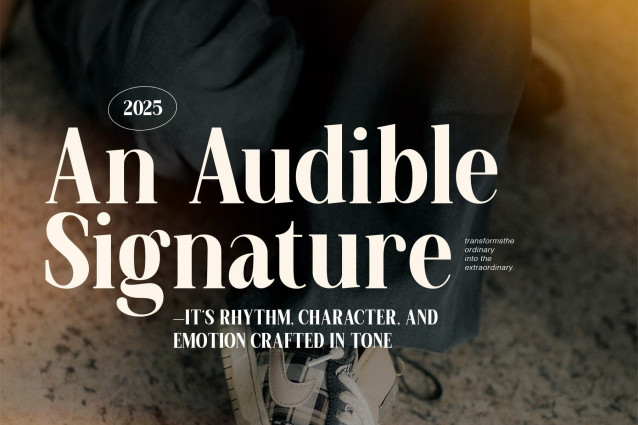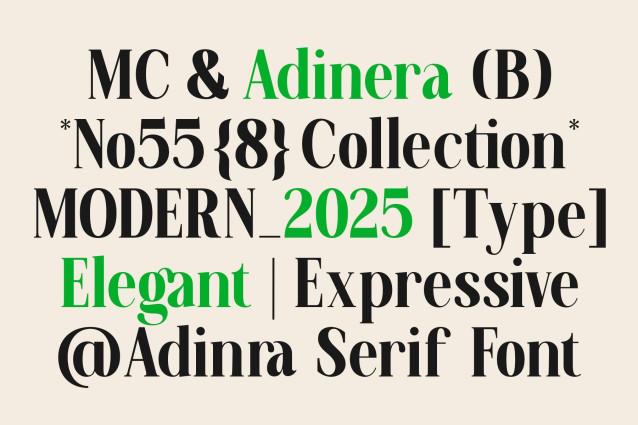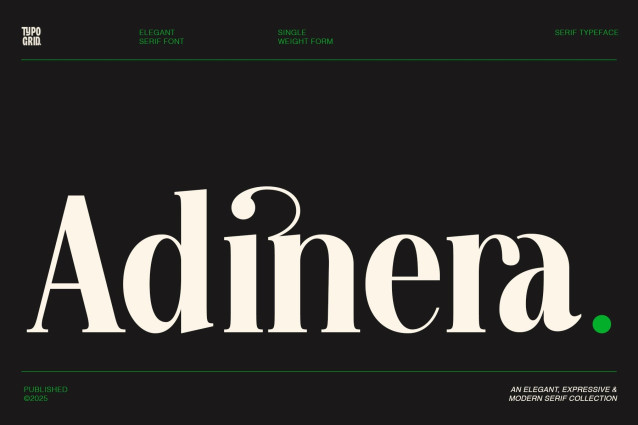
Adinera Font
Adinera Font is a sophisticated serif typeface that blends timeless elegance with modern flair. Its high-contrast strokes, sculptural letterforms, and sharp serifs evoke a sense of luxury and editorial boldness — ideal for fashion, branding, and lifestyle design.